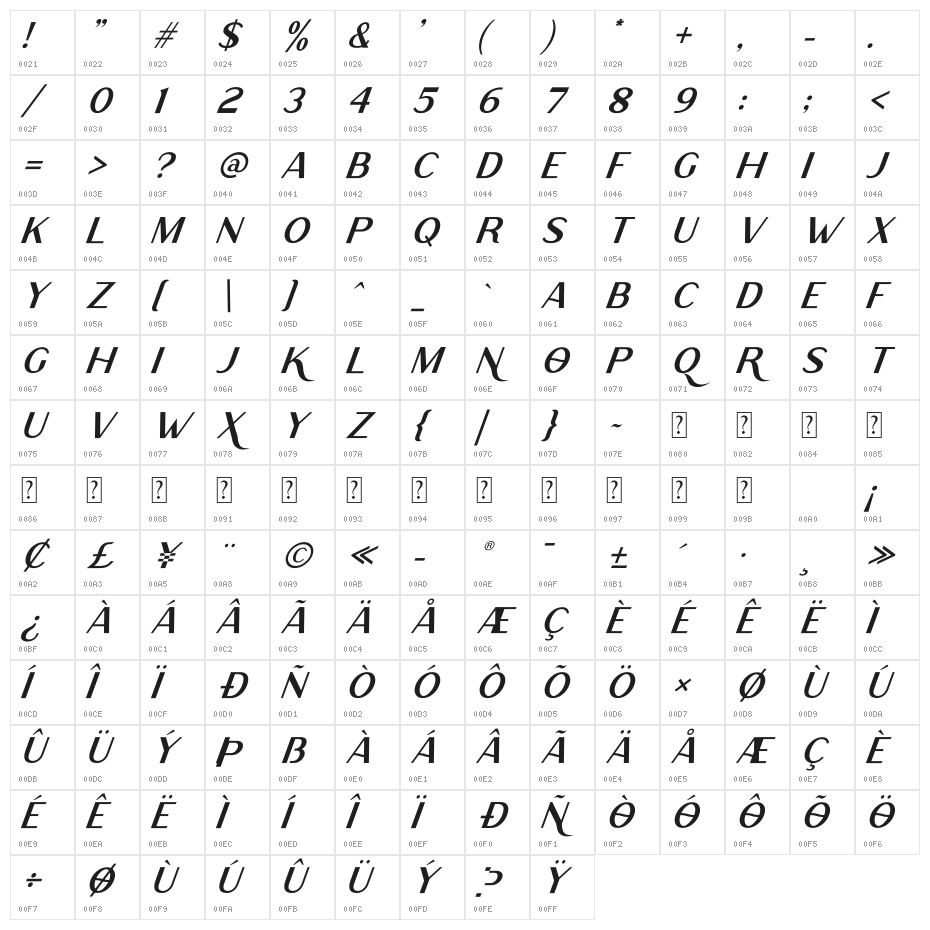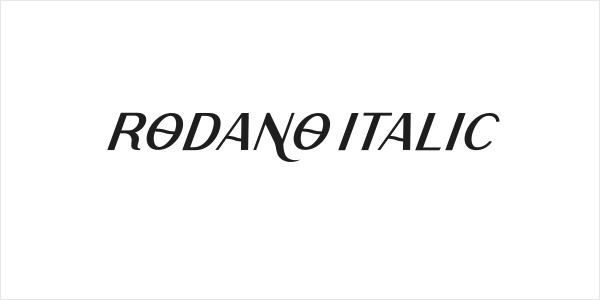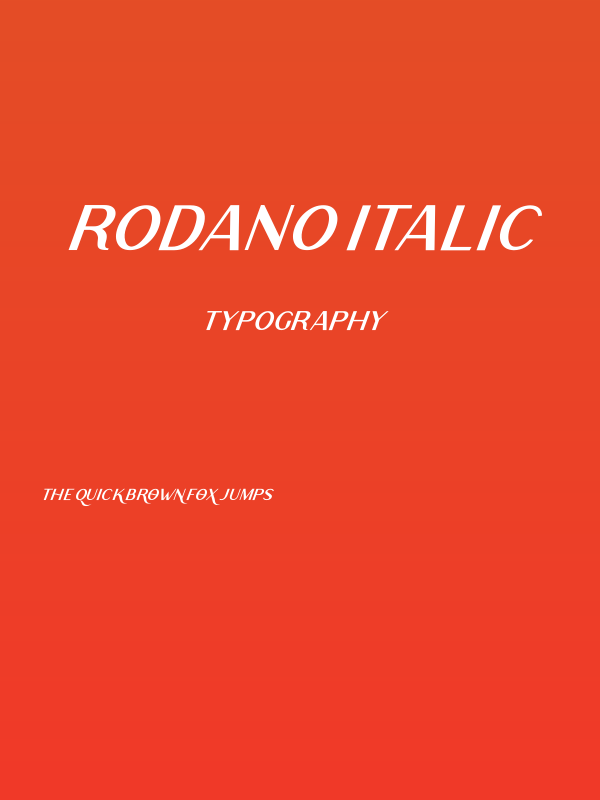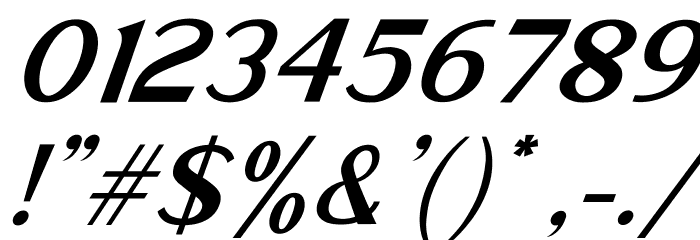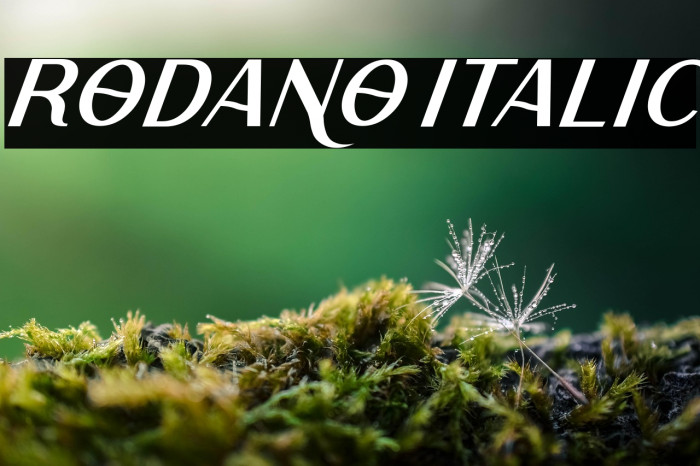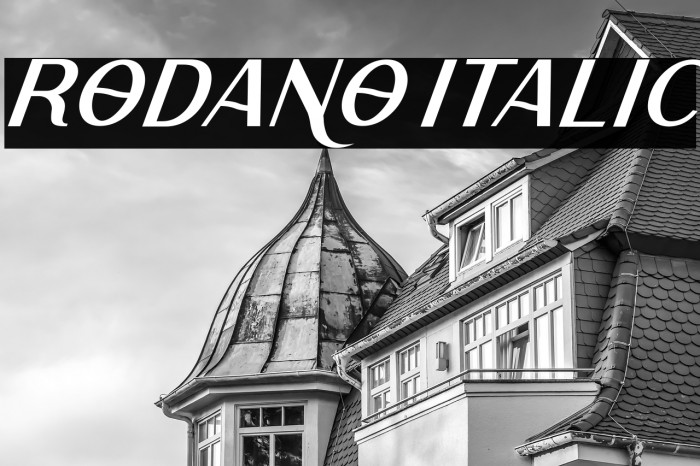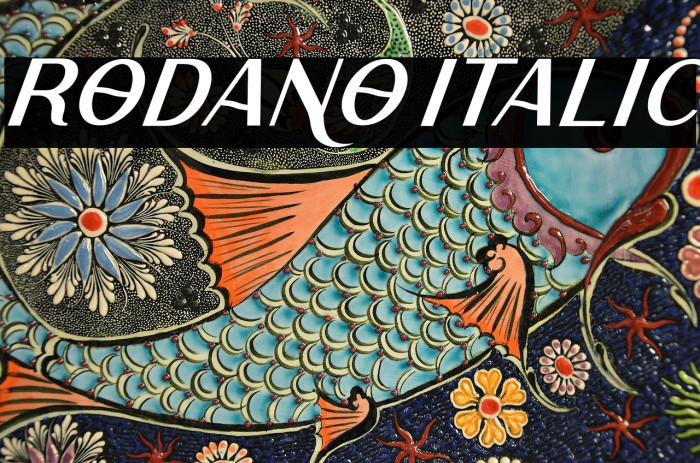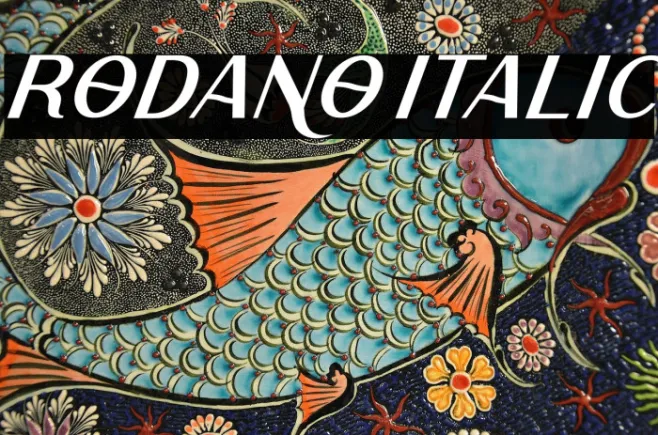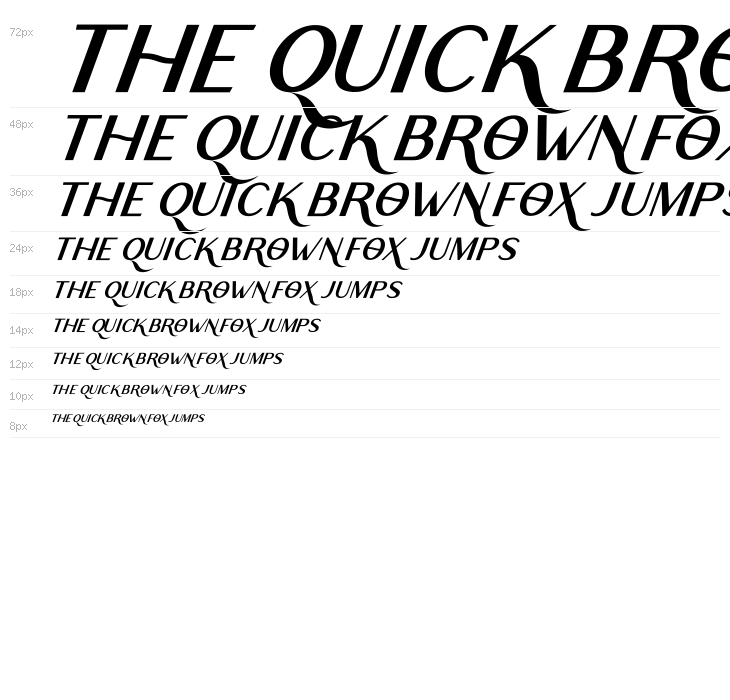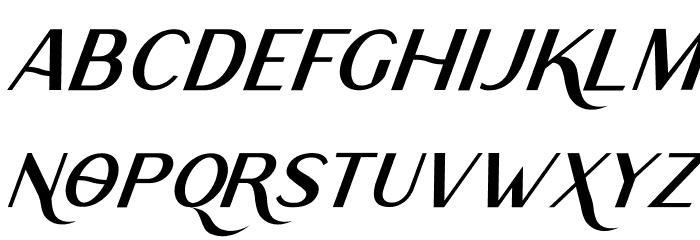
Rodano Italic Font
Rodano Italic Description
This font features an elegant italic style with a smooth, flowing appearance. The letters are slightly slanted, giving a sense of motion and sophistication. The strokes are clean and consistent, with moderate contrast between thick and thin lines. The uppercase letters have a classic, timeless feel, while the lowercase letters maintain readability with their well-proportioned forms. The numerals are distinct and align well with the overall style, making them suitable for both text and display purposes. Special characters are thoughtfully designed, complementing the font's aesthetic.